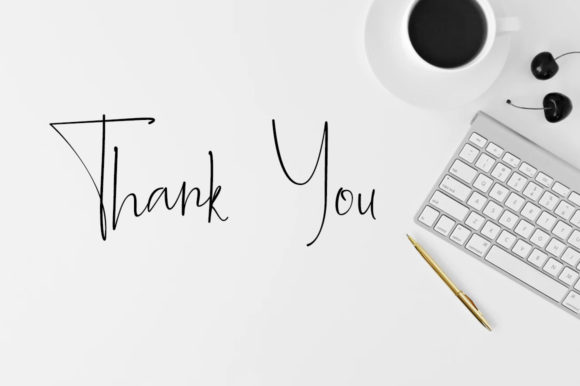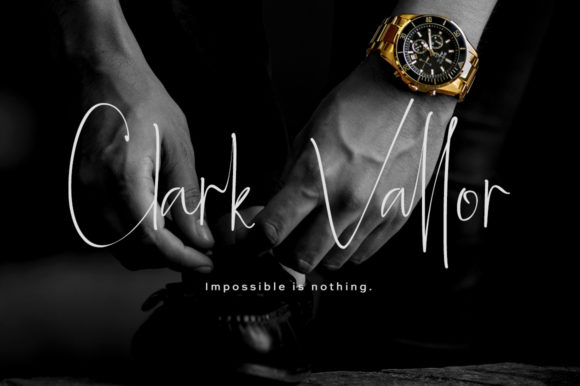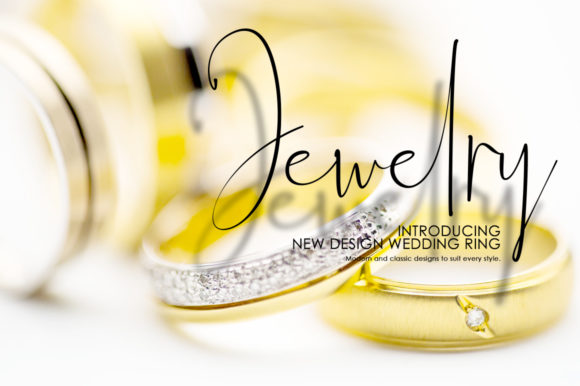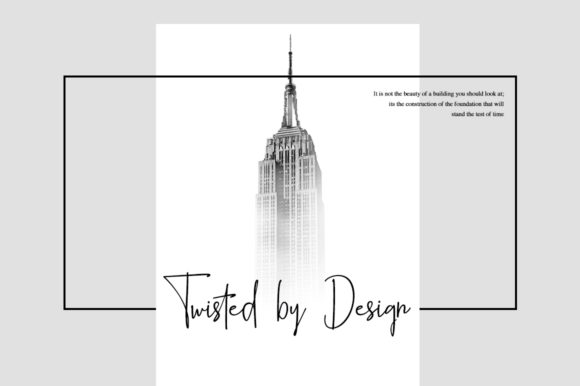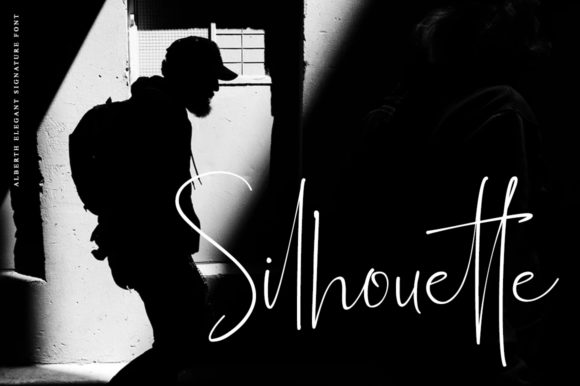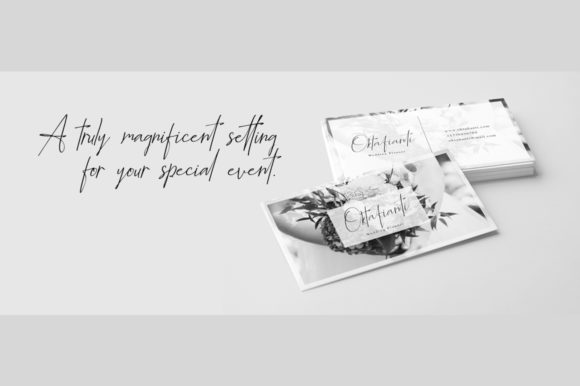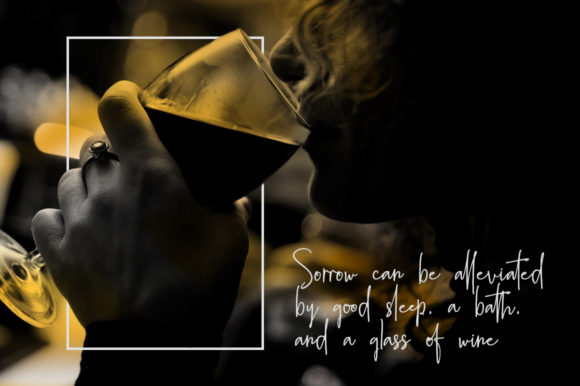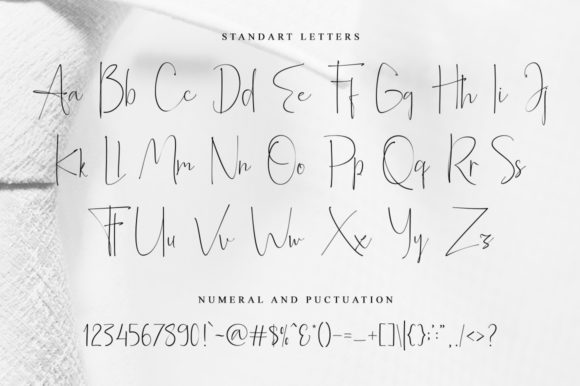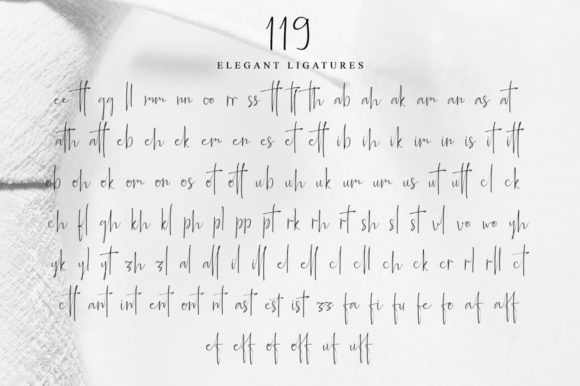
Alberth Family Font
About Alberth Family Font
The Alberth is an amazing family of unique and elegant fonts. It includes four weights which are perfect for adding a classy and luxurious touch to your designs.
It’s perfect for logos, invitations, wedding cards, watermarks, covers, quotes, business cards, and much more!